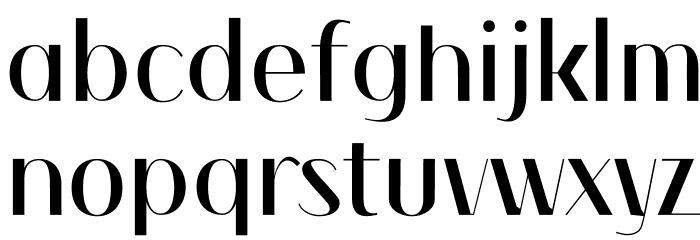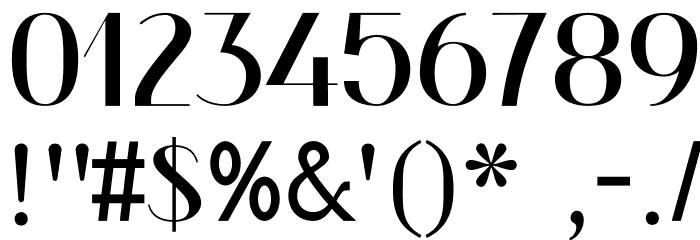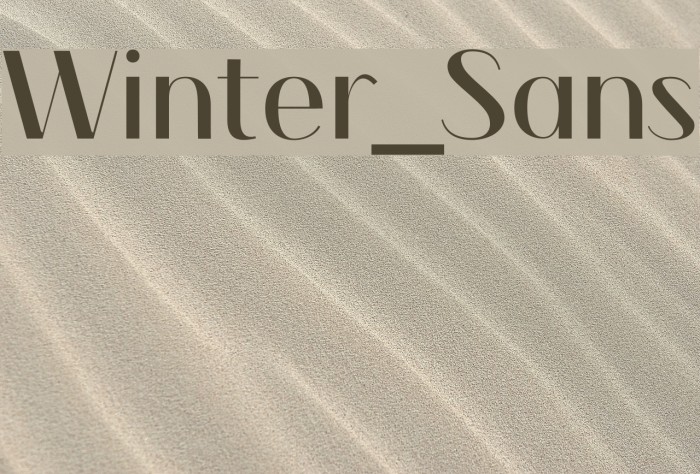
Winter_Sans Font
This font features a modern and elegant design with a high contrast between thick and thin strokes, giving it a sophisticated appearance. The uppercase letters are bold and striking, while the lowercase letters maintain a graceful flow. The numerals are distinct and stylish, complementing the overall aesthetic. Special characters are well-integrated, adding versatility to the font. The clean lines and sharp angles make it suitable for a variety of design projects, offering both readability and visual appeal.
A modern, high-contrast font with elegant strokes and a sophisticated style.
- Proposed Projects: Ideal for luxury branding, editorial design, fashion magazines, and high-end product packaging.
- Contrast: High
- Use Case: Headlines, Logos, Branding